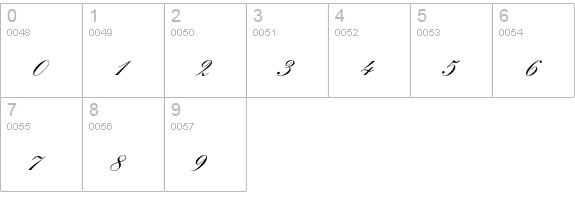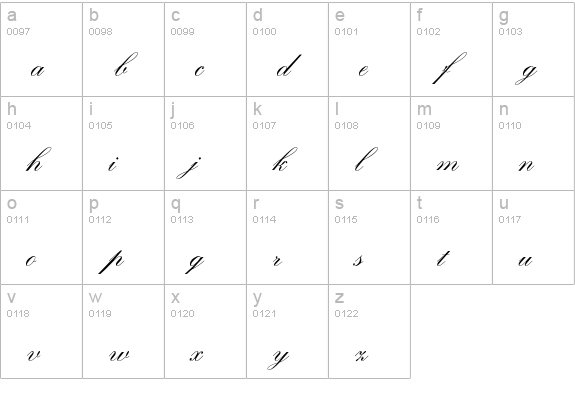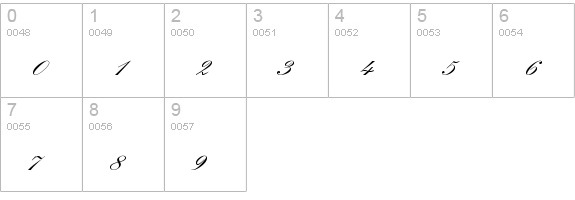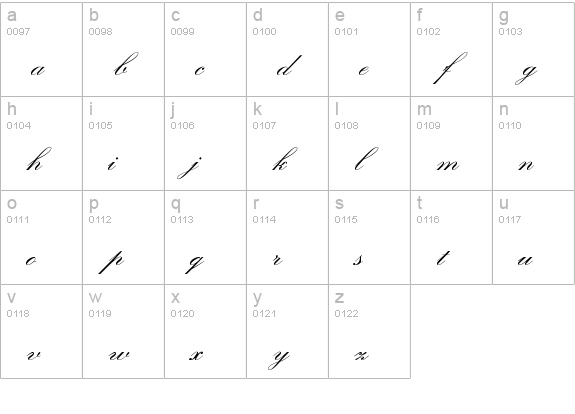
Kuenstler Script Bold is a strong, high-contrast variant in the Kuenstler typeface family \xE2\x80\x94 well suited to headlines, attention-grabbing titles, and strong calls-to-action.
Kuenstler Script Bold font is a stunning typeface that exudes elegance and sophistication. Its intricate and flowing script style is perfect for adding a touch of luxury to any design project. The bold weight of this font makes a strong statement while still maintaining a sense of refinement. What sets Kuenstler Script Bold font apart is that it is available for free download at FontsMarket.com. This means that you can easily access this beautiful font and use it in your projects without any cost. Whether you're working on invitations, branding materials, or any other creative endeavor, Kuenstler Script Bold font is sure to elevate your design with its timeless charm and grace.